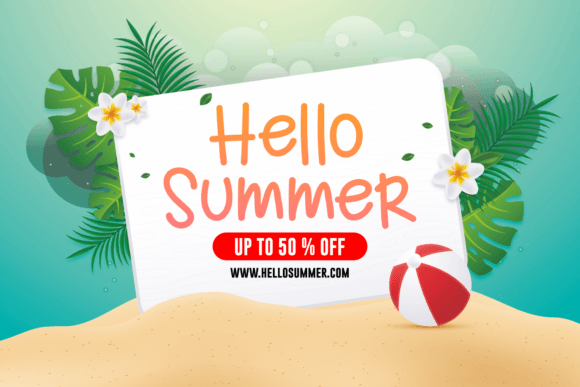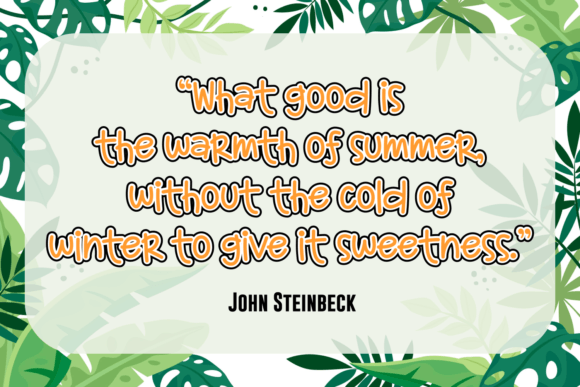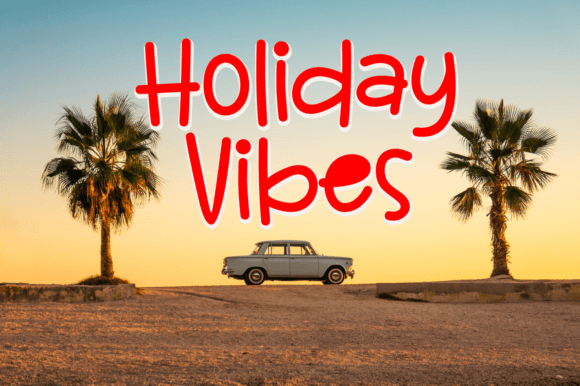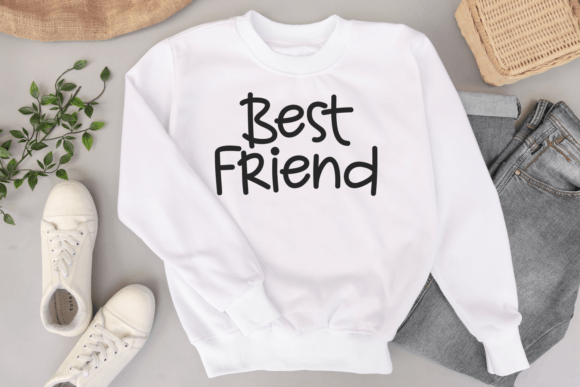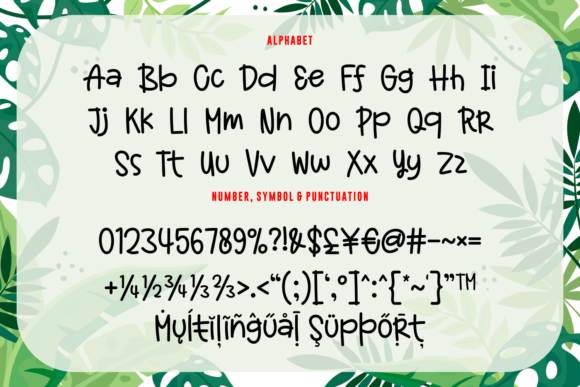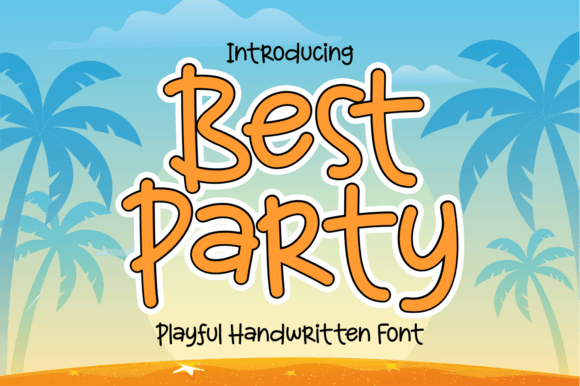
Unleash the Fun: Discover the Best Party Font for Your Designs
Are you tired of using the same old boring fonts for your designs? Do you want to add a touch of whimsy and personality to your creations? Look no further than the Best Party font! With its unique and offbeat style, this font is perfect for designers and crafters who want to make their designs stand out from the crowd.
What Makes Best Party Font So Special?
The Best Party font is a one-of-a-kind typeface that is sure to add a dash of fun and excitement to any design. Its whimsical and quirky style makes it perfect for projects that require a playful touch, such as party invitations, greeting cards, and social media graphics. Whether you’re a professional designer or a DIY crafter, this font is sure to inspire your creativity and help you create designs that are truly unique.
Key Features of Best Party Font
- Whimsical and Offbeat Style: The Best Party font features a unique and quirky design that is sure to add a touch of fun and personality to your designs.
- PUA Encoded: This font is PUA encoded, which means you can access all glyphs and swashes effortlessly, making it easy to use and customize.
- Highly Versatile: The Best Party font can be used for a wide range of design projects, from party invitations and greeting cards to social media graphics and more.
Why Designers and Crafters Love Best Party Font
Designers and crafters love the Best Party font for its unique and playful style, which adds a touch of personality to any design. Here are just a few reasons why:
- High-Quality Design: The font features a high-quality design that is sure to impress, with crisp and clear lines that look great at any size.
- Endless Creative Possibilities: With the Best Party font, the creative possibilities are endless. Use it to create fun and playful designs, or experiment with different styles and techniques to create something truly unique.
How to Use Best Party Font in Your Designs
Using the Best Party font in your designs is easy! Here are a few tips to get you started:
- Pair it with Other Fonts: Experiment with pairing the Best Party font with other fonts to create a unique and eye-catching design.
- Use it for Headlines and Titles: The Best Party font is perfect for headlines and titles, where its playful style can really shine.
- Add Swashes and Glyphs: With its PUA encoding, you can easily access all glyphs and swashes to add a touch of personality to your designs.